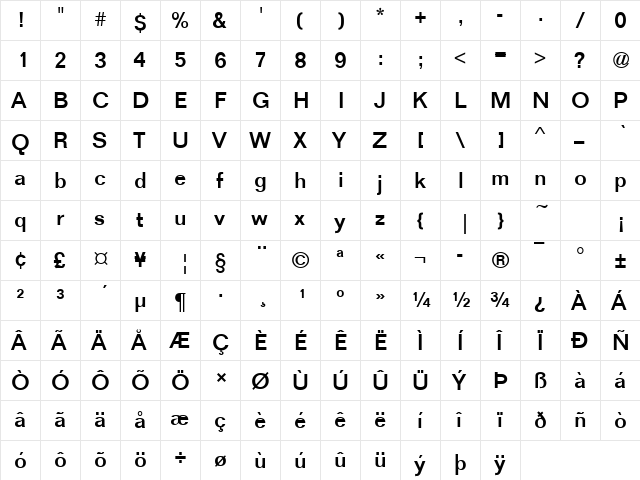
FolioTMed Regular
Design Context for FolioTMed Typeface
FolioTMed takes a measured approach to typography — its balanced proportions and neutral character make it a reliable workhorse for both digital and print work.